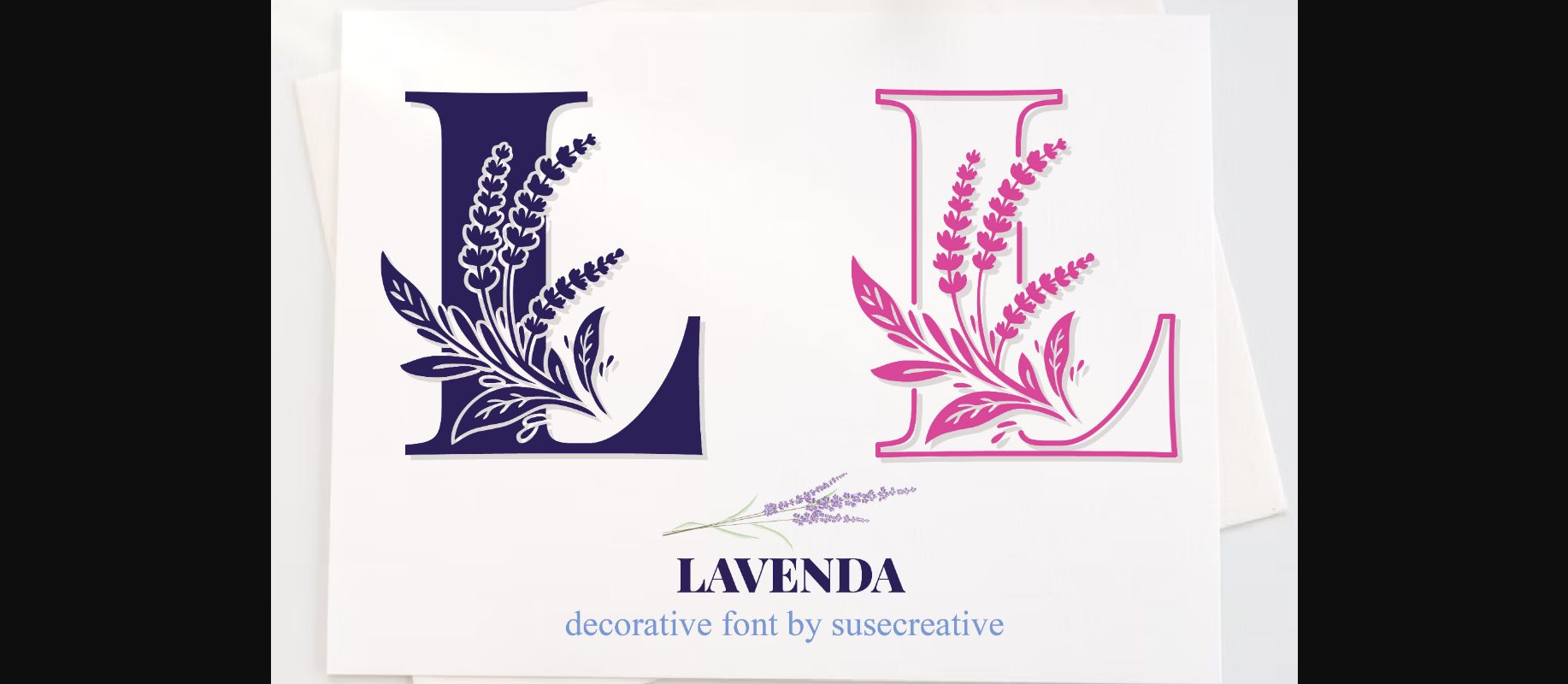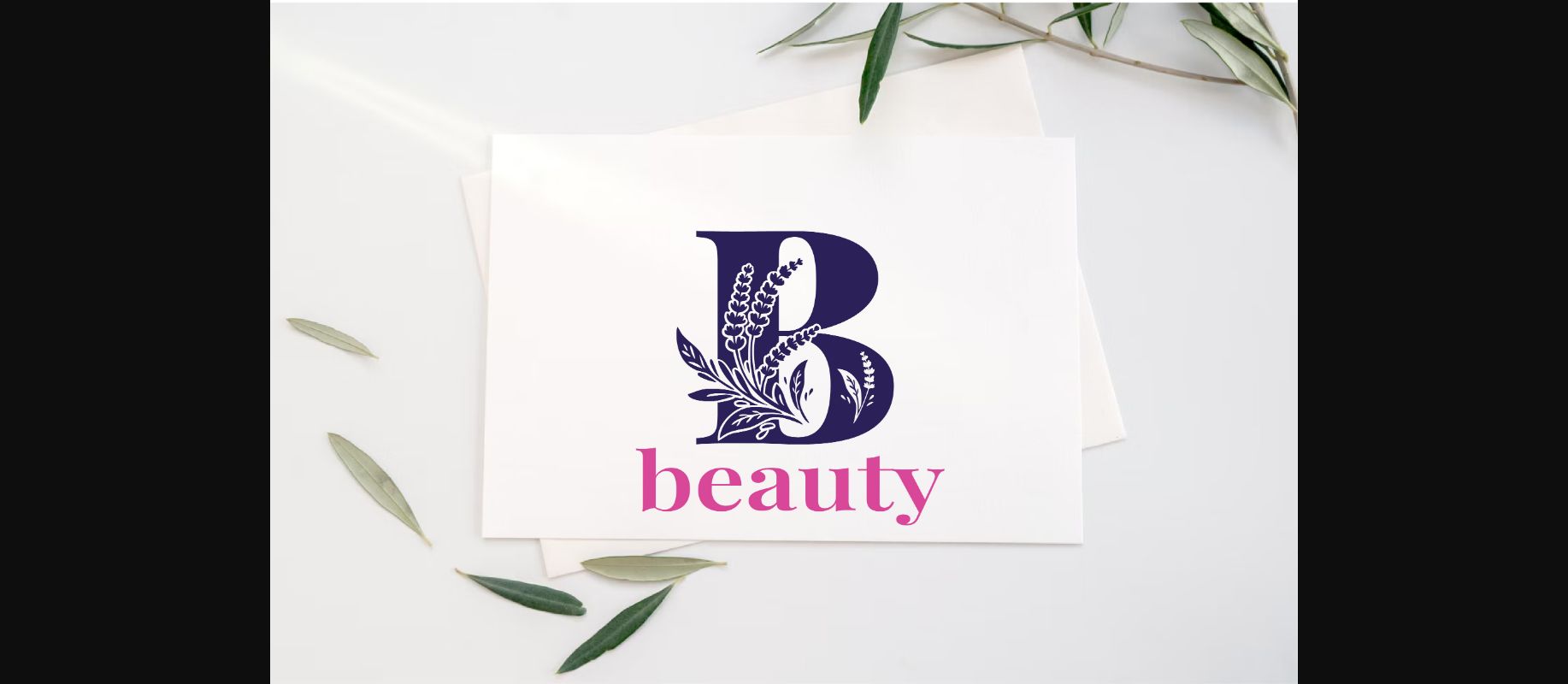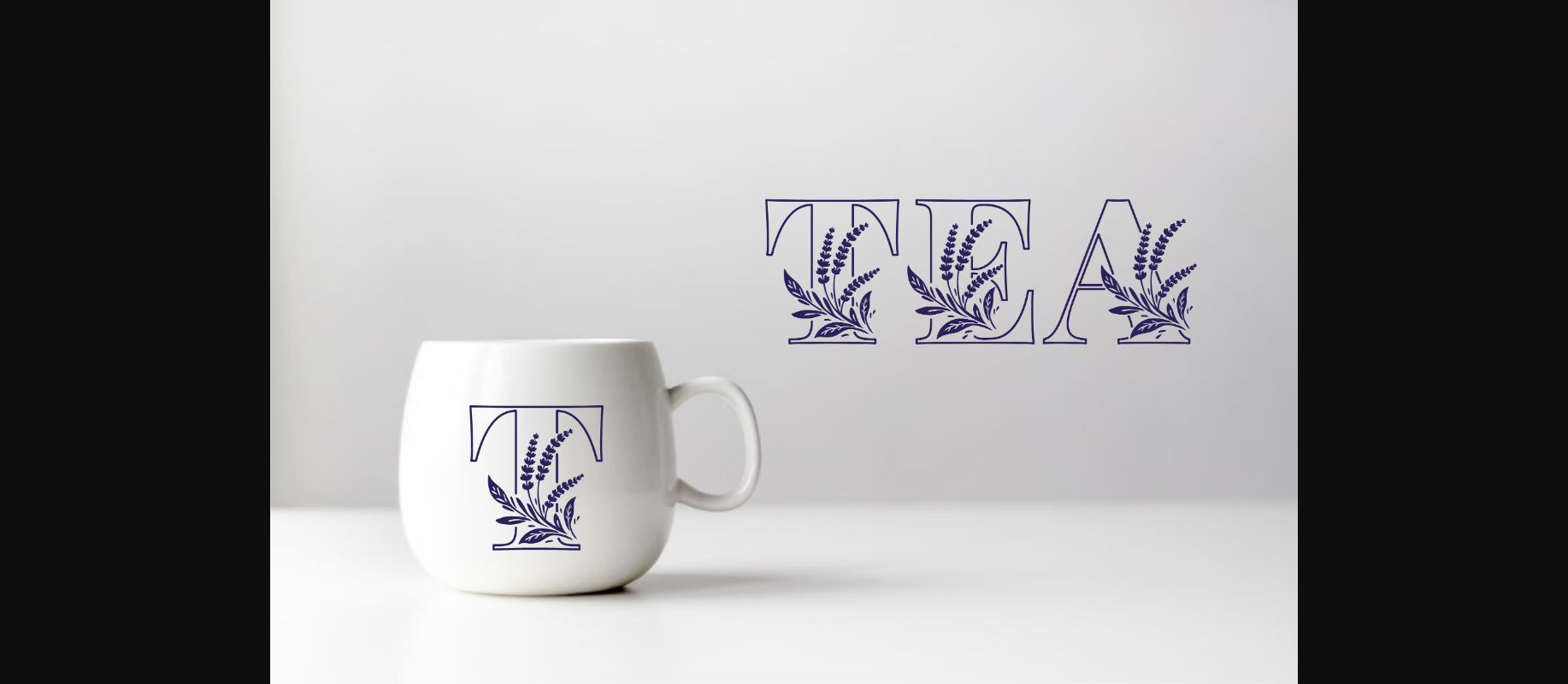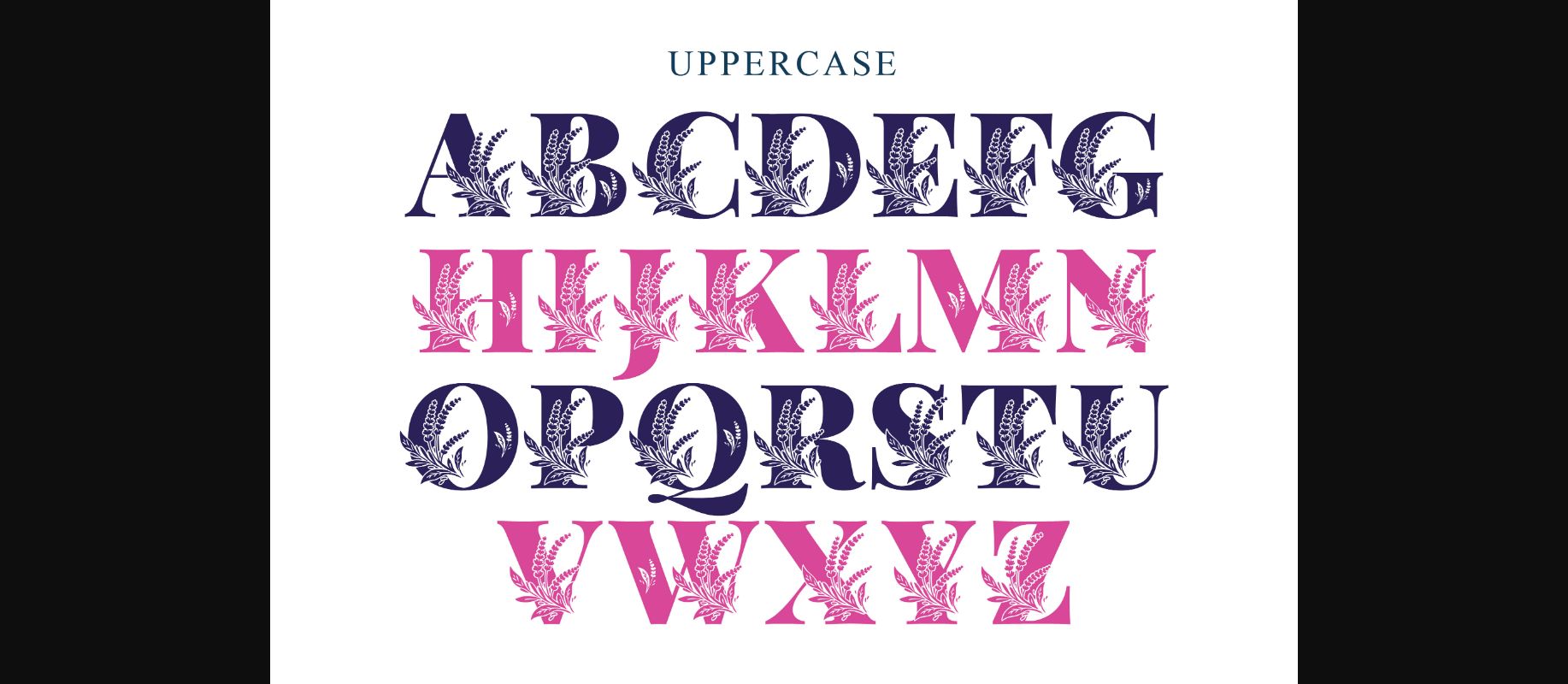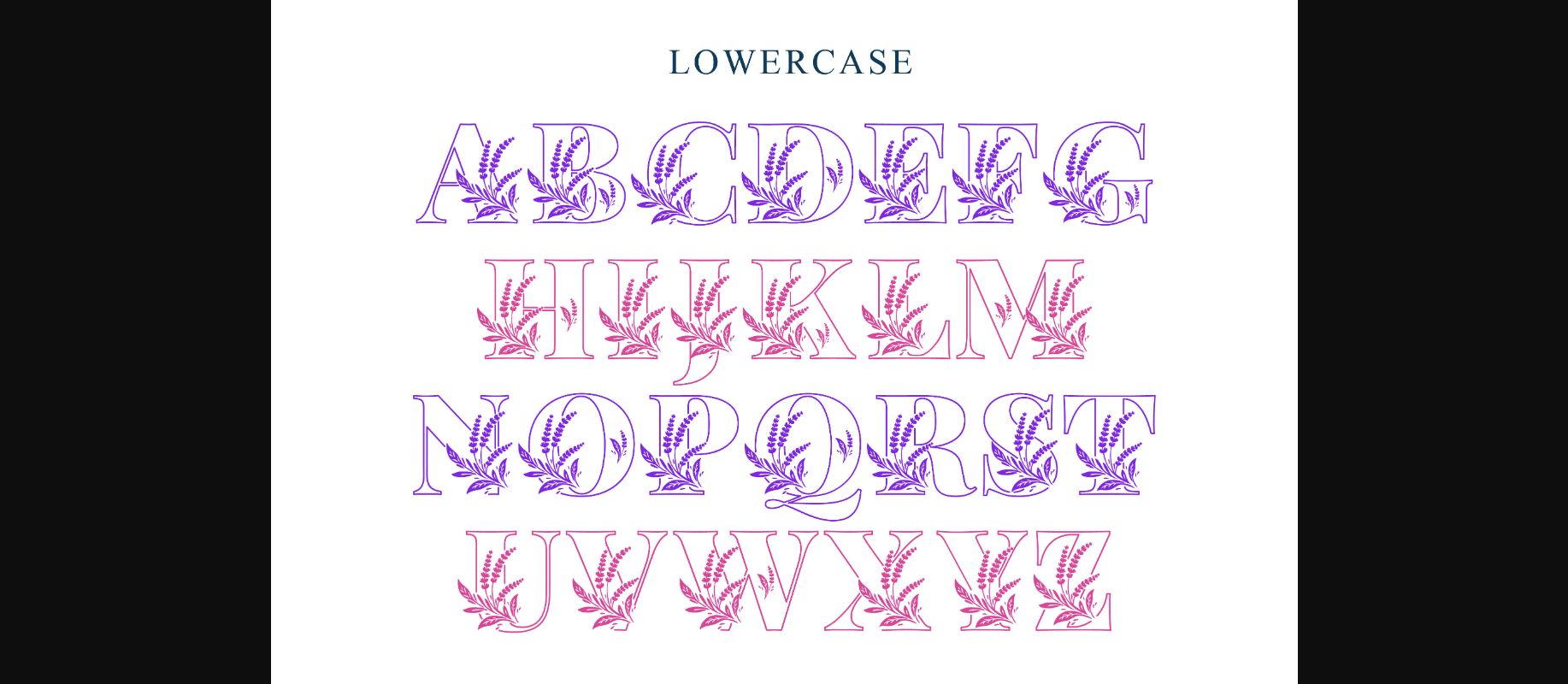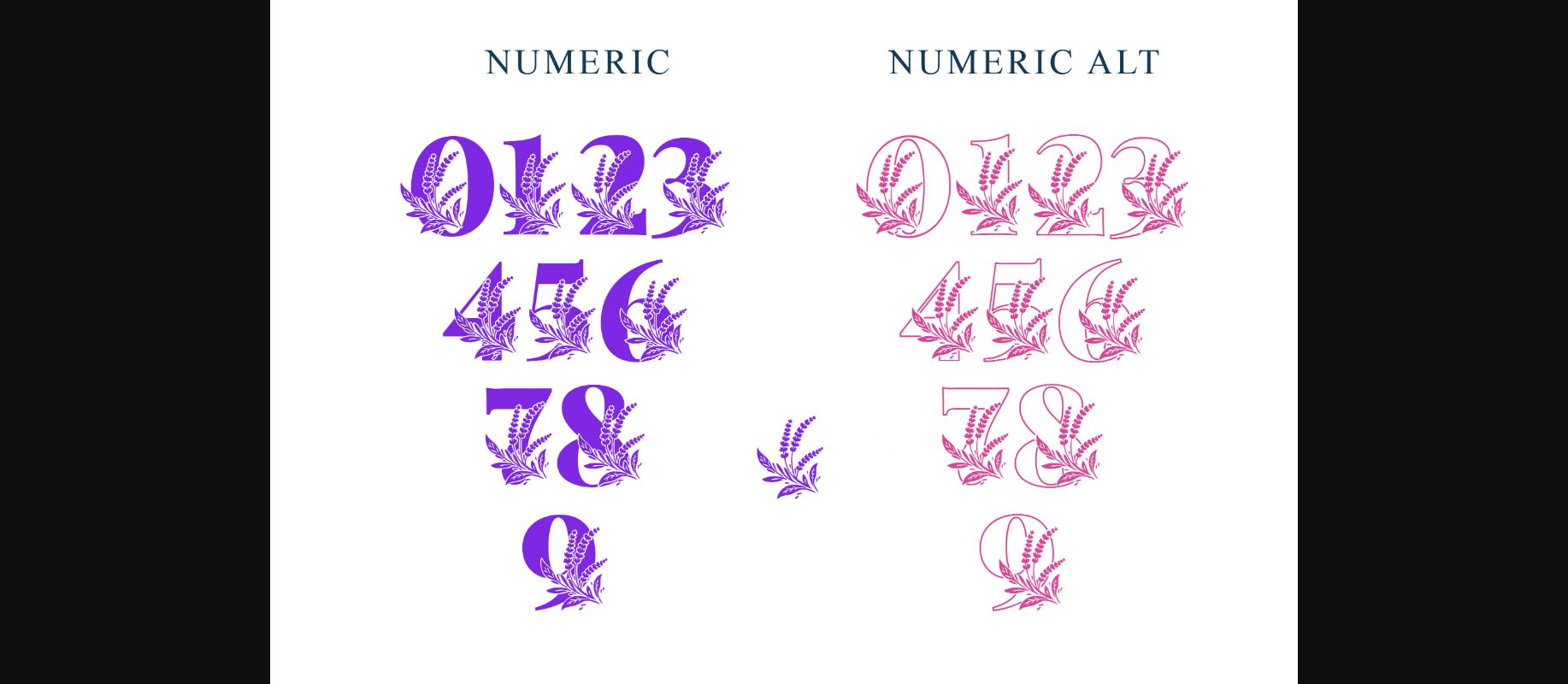
About Lavenda Font
Lavenda Font is a decorative typeface designed especially for those who appreciate beauty and elegance in design. The fusion of uppercase letters with lavender silhouettes adds grace to your designs. Perfect for various types of designs including book covers, screen printing, invitations, and more.